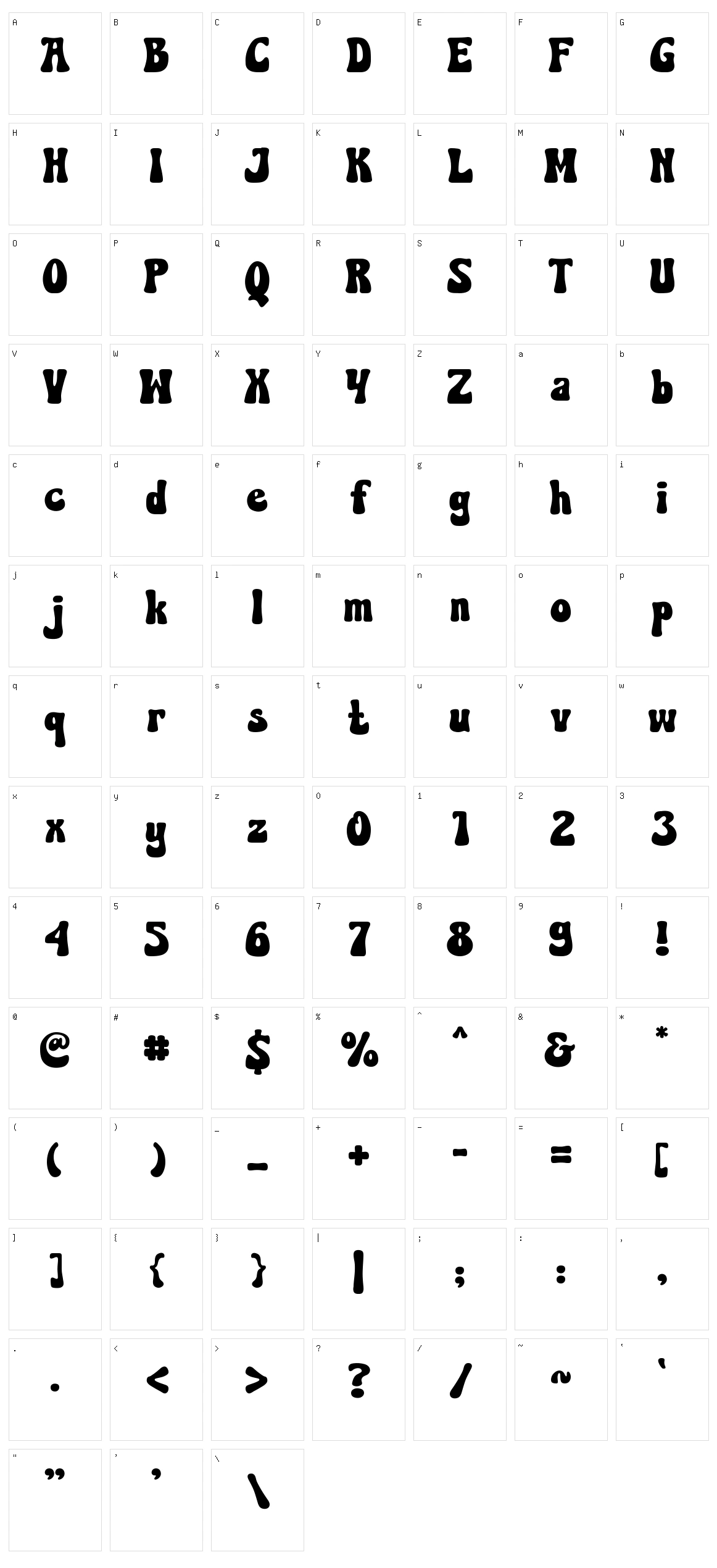
The free font Corduroy is carefully designed by Tokopress, showcasing a thoughtful balance of creativity and usability and falls under the Groovy font style. When you download the ZIP file, it contains only 17.95 KB of font files, making it lightweight and quick to download. Please review the license details below to understand permitted usage and distribution rights. If license information is not available, we recommend using this font for personal projects only or contacting the author directly for commercial usage permissions.